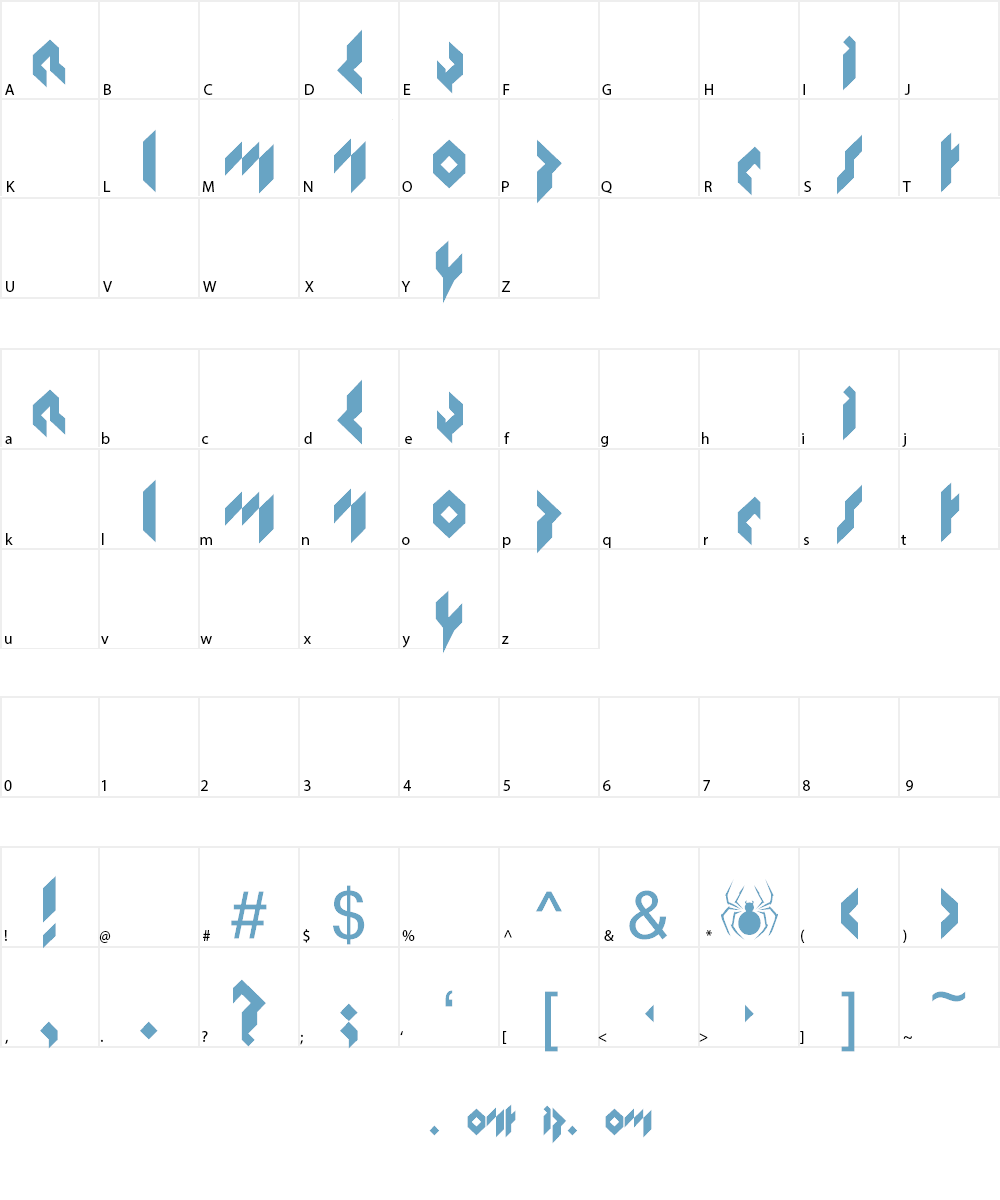
Font based on the first ever Science Fiction Movie of a similar name created in 1927, set on a planet that featured a female robot called Maria who is sent among the inhabitants to promote a revolution. The stems are wide with angular cross steps of varying heights in a crystalline type structure influenced by the Fortress of Solitude, from Superman's home world however this Dystopian film did influence many science later fiction films like Dark City, Blade Runner, The Matrix, Star Wars and Brazil.